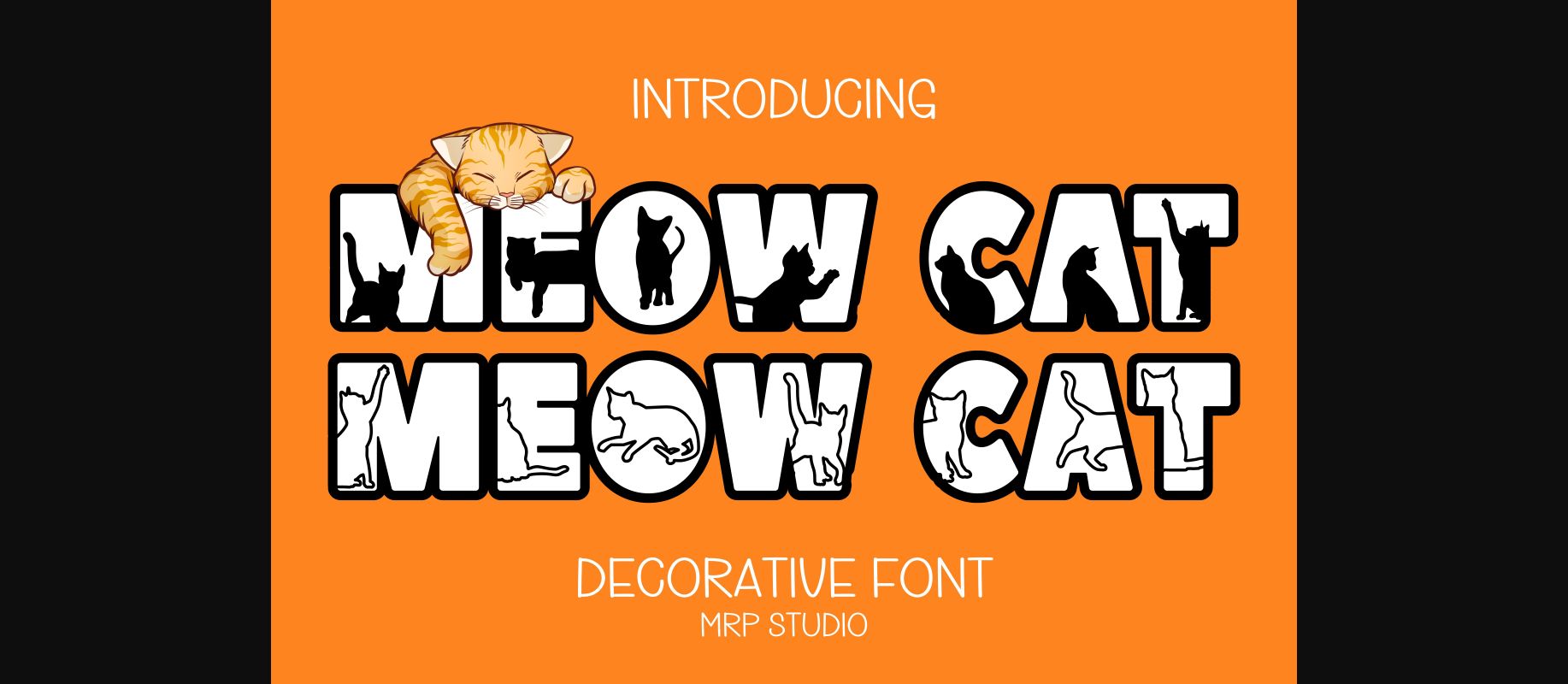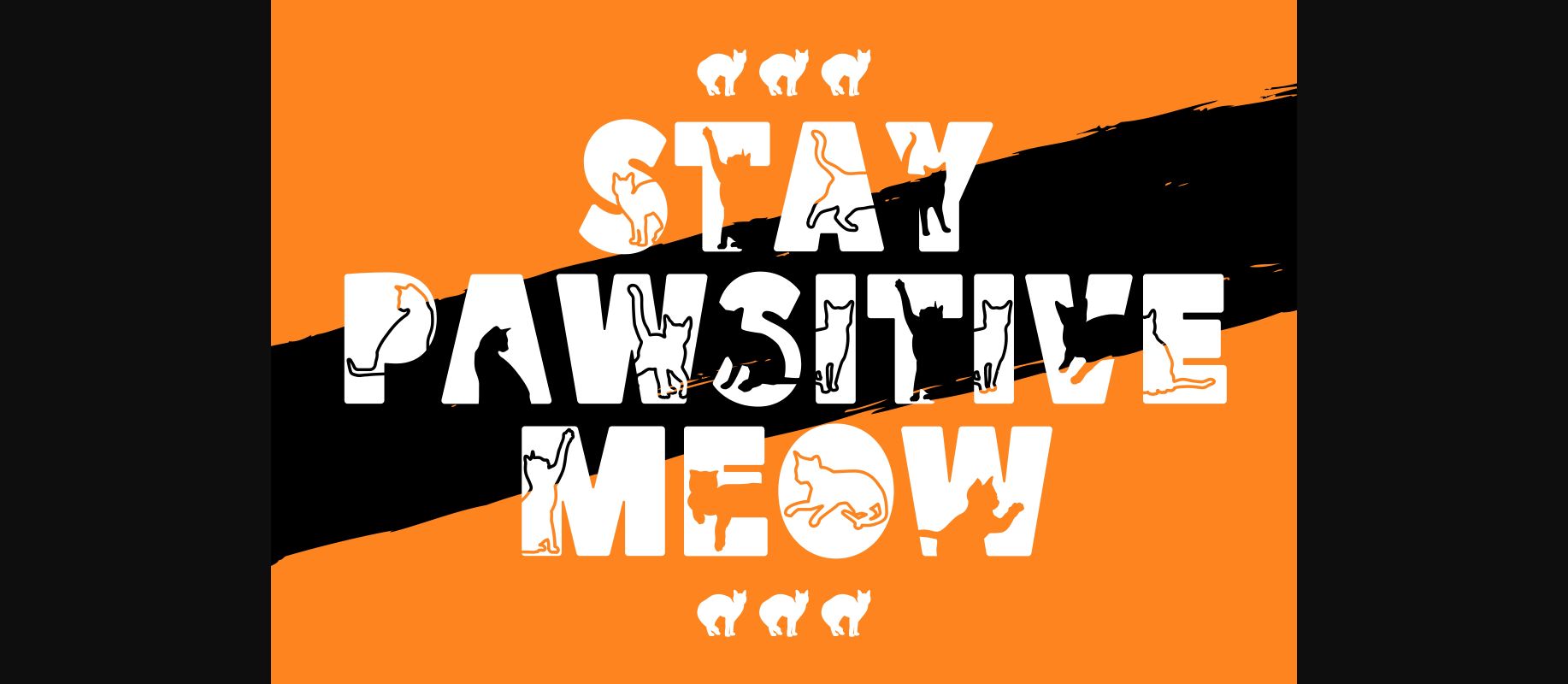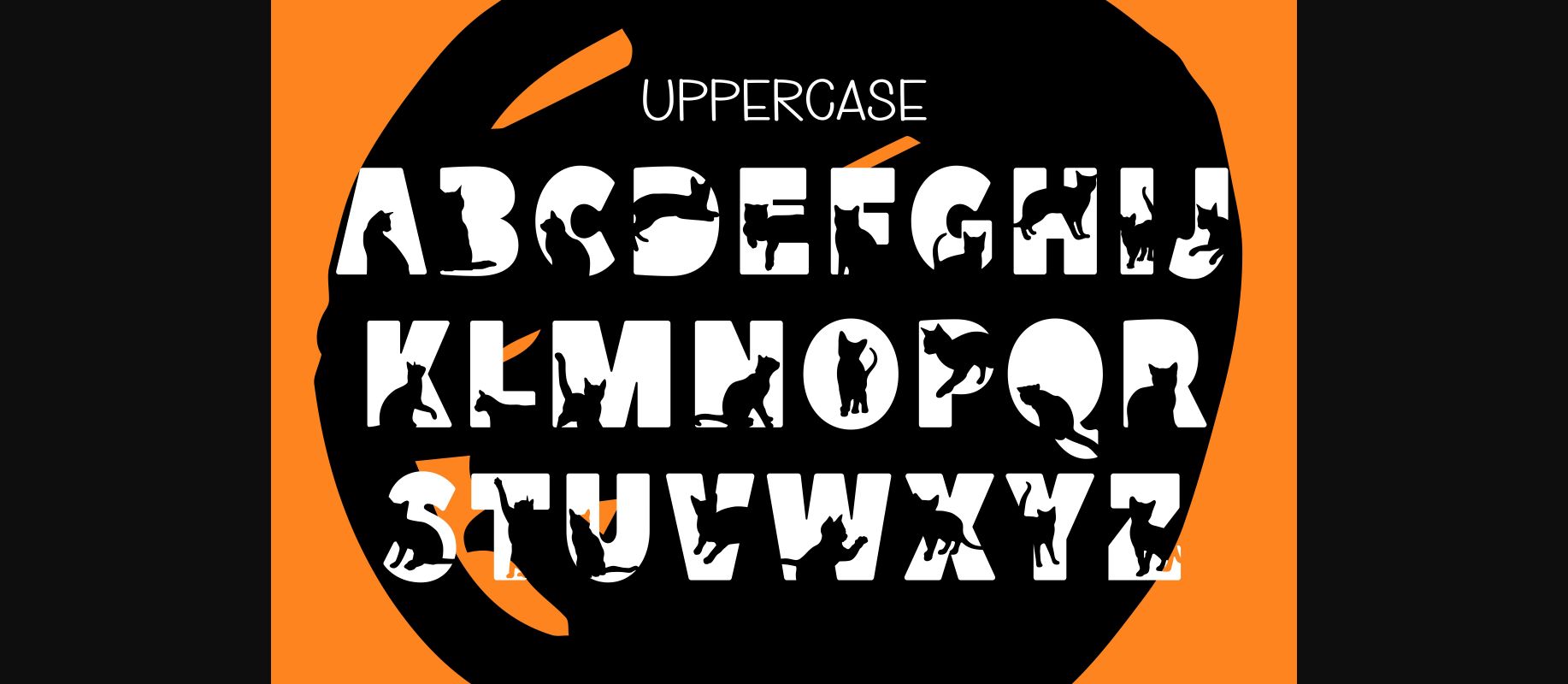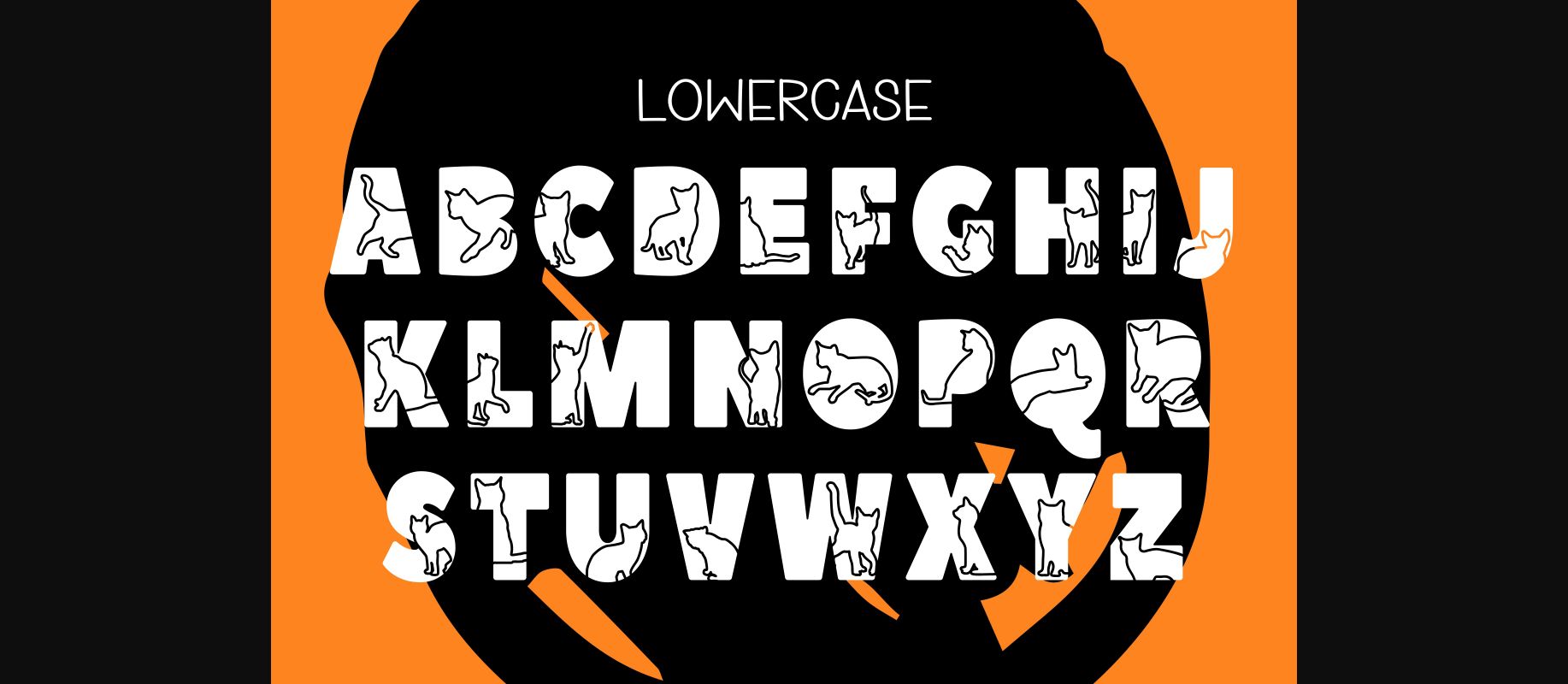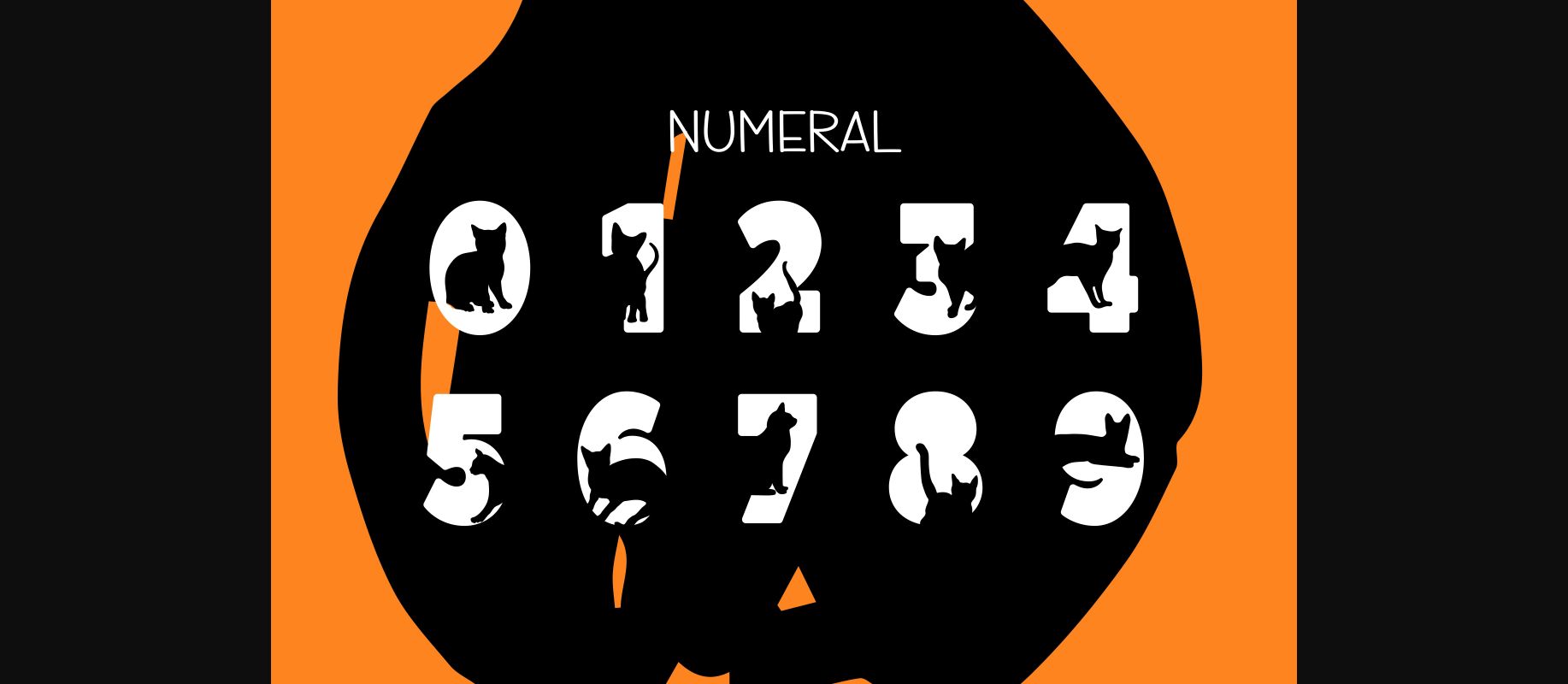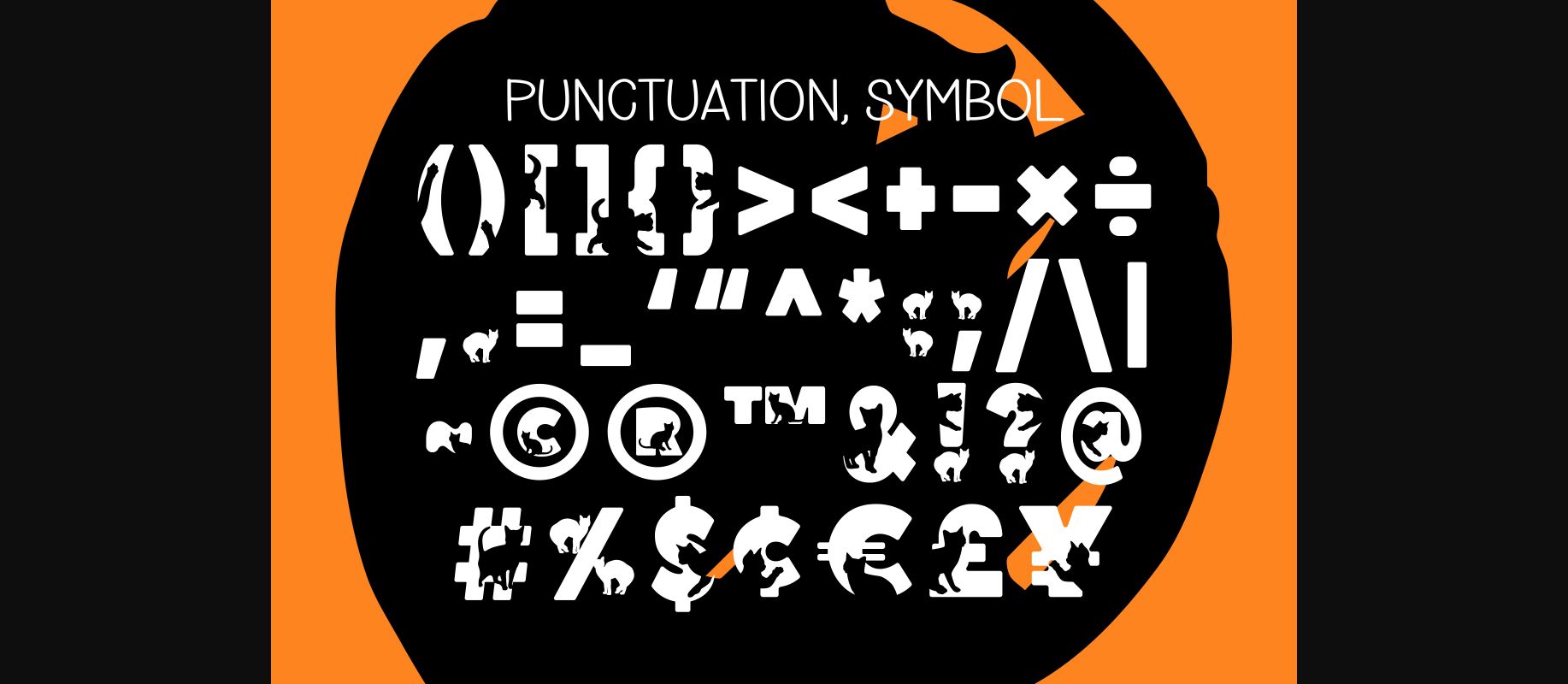
Meow Cat Font
About Meow Cat Font
Meow Cat is featuring charming silhouettes of feline friends, it’s perfect for adding a touch of whimsy to any design project. Whether you’re creating invitations, posters, or social media graphics, this font is sure to make a playful and memorable impression. Get ready to add some feline fun to your designs!